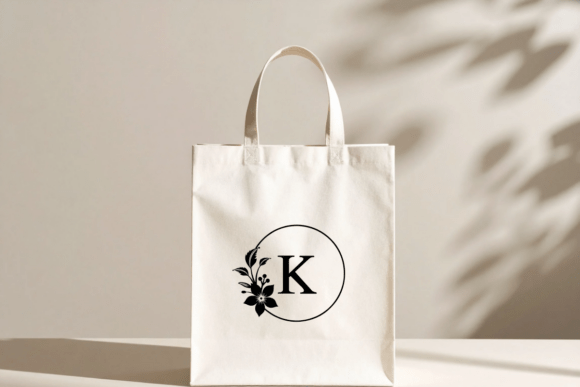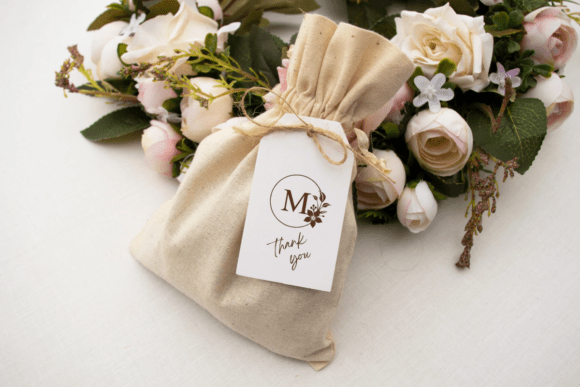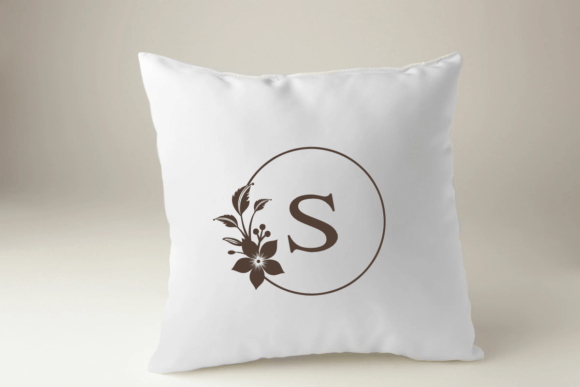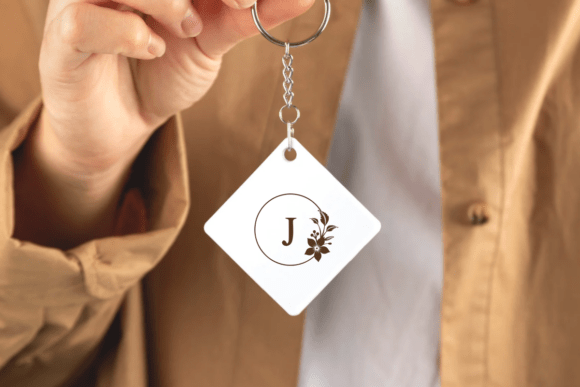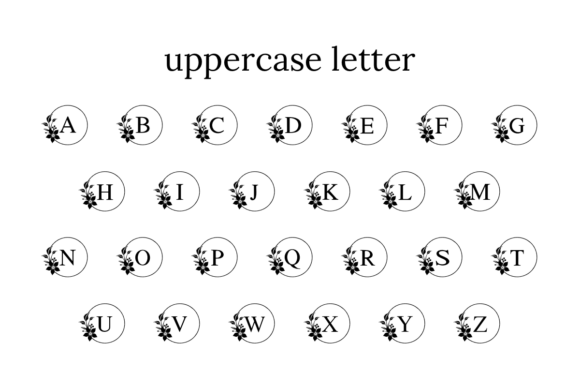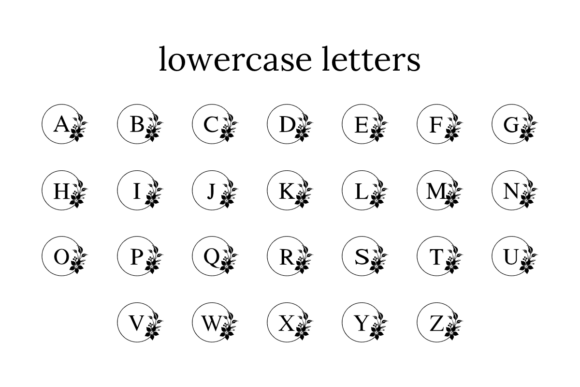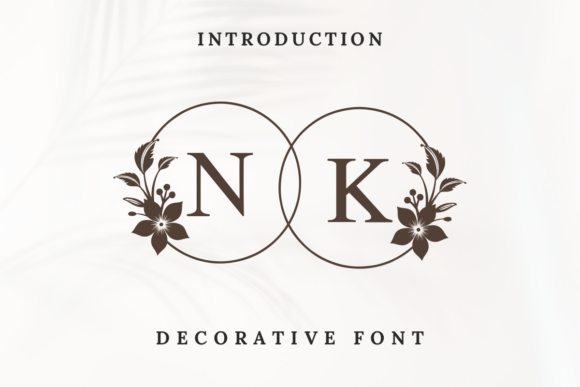
Introducing the Timeless Elegance of Classic Monogram Font
Are you a designer, crafter, or simply a stationery enthusiast looking for a font that exudes classic sophistication? Look no further than the Classic Monogram Font. This decorative font is perfect for adding a touch of elegance to your notes, diaries, greeting cards, and various design projects.
What is Classic Monogram Font?
Classic Monogram Font is a beautifully crafted decorative font, designed to bring a sense of nostalgia and refinement to your written work. Its intricate details and classic design make it an ideal choice for those who appreciate traditional typography.
Uses of Classic Monogram Font
This versatile font can be used in a multitude of ways, making it a valuable addition to any designer’s or crafter’s toolkit. Here are some ideas to get you started:
- Note-taking and Journaling: Add a touch of elegance to your notes and diary entries with Classic Monogram Font. It’s perfect for writing titles, headings, or even entire journal entries.
- Greeting Cards: Create beautiful, one-of-a-kind greeting cards for special occasions like birthdays, weddings, and holidays.
- Banners and Signs: Use Classic Monogram Font to create eye-catching banners and signs for parties, events, or even business promotions.
- Content Creation: Add a touch of sophistication to your blog posts, social media updates, or website content with this elegant font.
- Mugs and Water Bottles: Design personalized mugs and water bottles with Classic Monogram Font for a unique and thoughtful gift.
- T-Shirts and Apparel: Create stylish and elegant apparel with Classic Monogram Font, perfect for fashion brands or personal use.
- Stationery and Paper Goods: Design beautiful stationery sets, notebooks, and paper goods that showcase your creativity and attention to detail.
- Social Media Posts: Elevate your social media presence with eye-catching graphics and posts created using Classic Monogram Font.
Why Choose Classic Monogram Font?
With so many fonts available, why choose Classic Monogram Font? Here are a few reasons why designers and crafters love this font:
- Unique and Versatile: Classic Monogram Font is a one-of-a-kind font that can be used in various design projects, from traditional to modern.
- Elegant and Sophisticated: This font exudes classic elegance, making it perfect for designs that require a touch of sophistication.
- Easy to Read: Despite its decorative nature, Classic Monogram Font is easy to read, making it suitable for body text and headings.
- High-Quality Design: This font is carefully crafted with attention to detail, ensuring a high-quality design that will elevate your projects.
Tips for Using Classic Monogram Font
To get the most out of Classic Monogram Font, here are some tips to keep in mind:
- Pair with Other Fonts: Experiment with pairing Classic Monogram Font with other fonts to create a unique and visually appealing design.
- Use for Headings and Titles: Take advantage of the font’s decorative nature by using it for headings and titles, and pairing it with a simpler font for body text.
Classic Monogram Font is a timeless and elegant decorative font that can elevate your designs and add a touch of sophistication to your written work. With its versatility, unique design, and high-quality craftsmanship, it’s an excellent addition to any designer’s or crafter’s toolkit. Whether you’re creating greeting cards, banners, or social media posts, Classic Monogram Font is sure to impress.